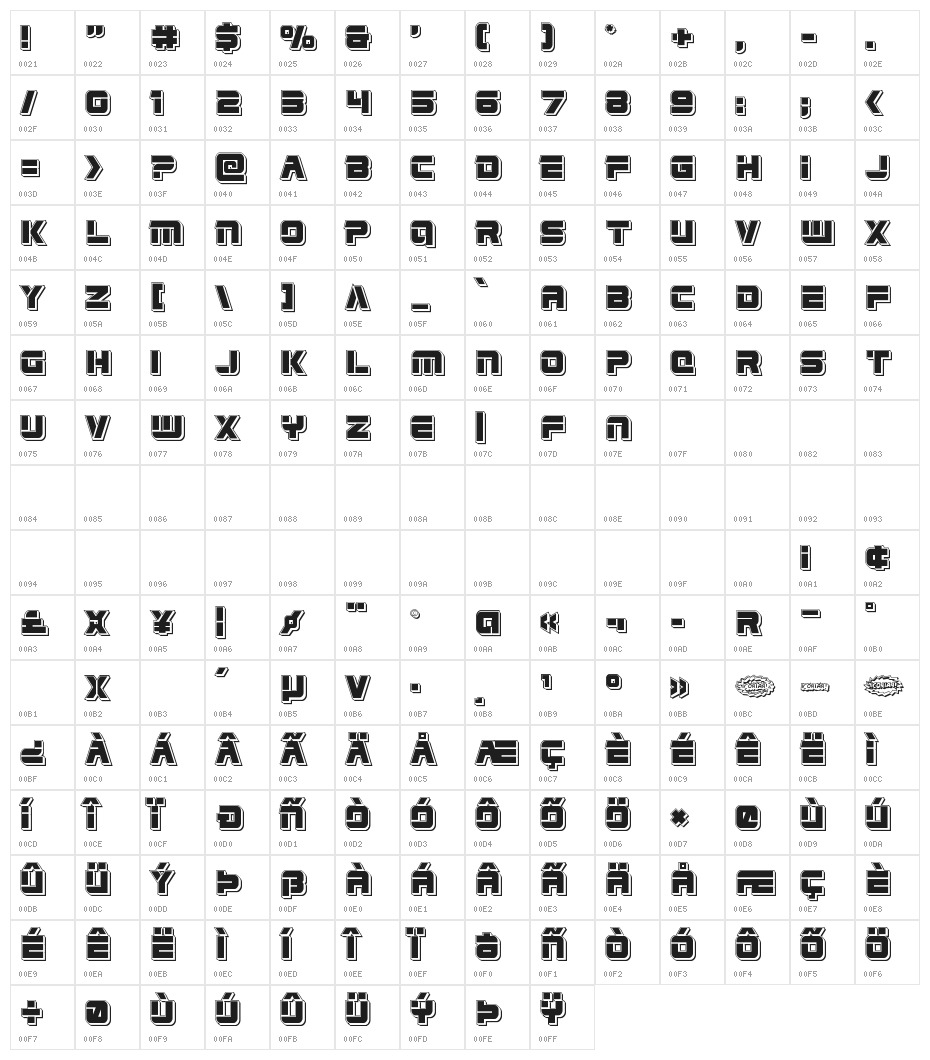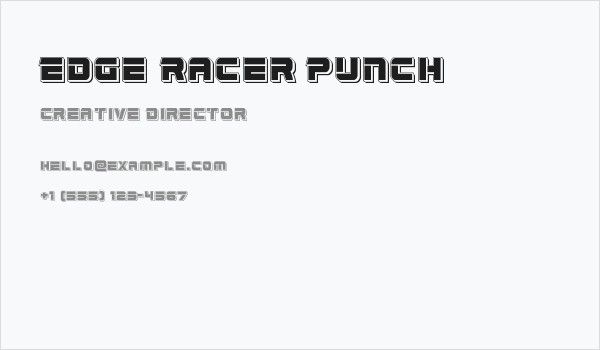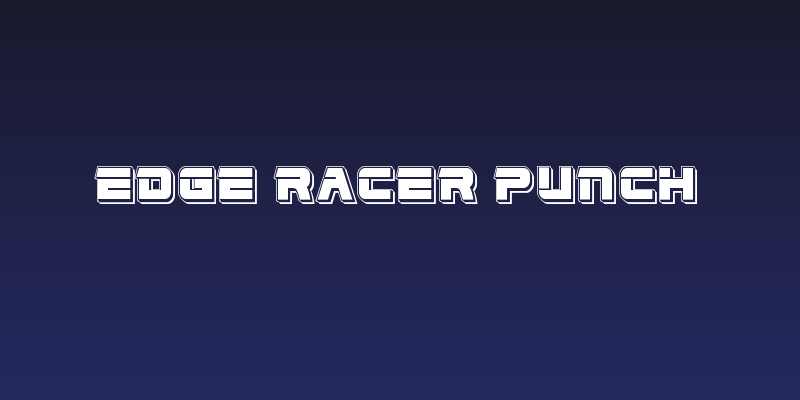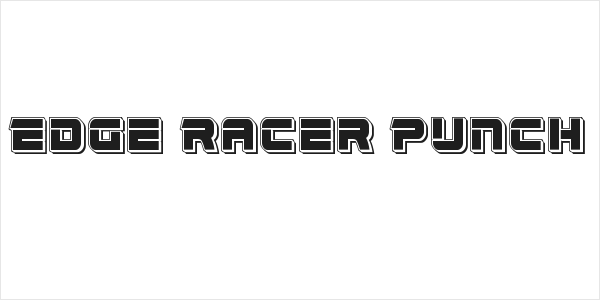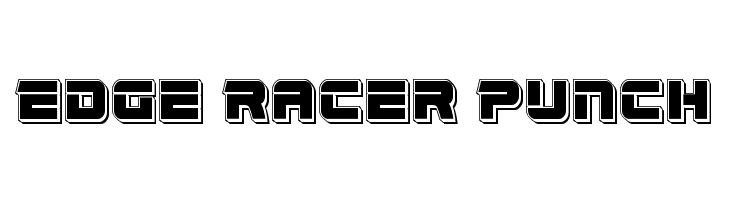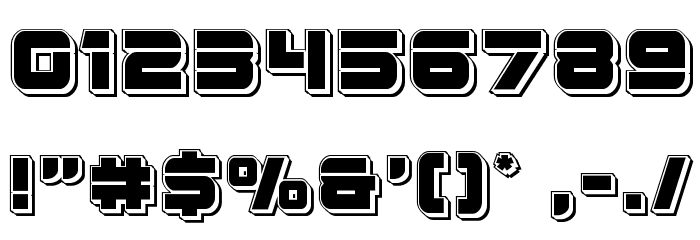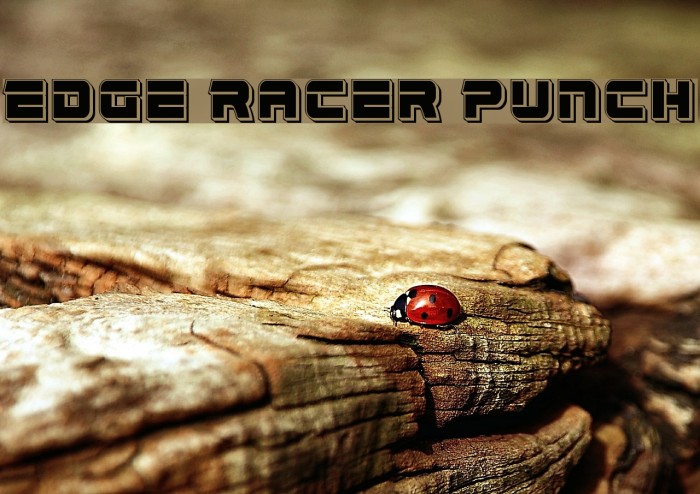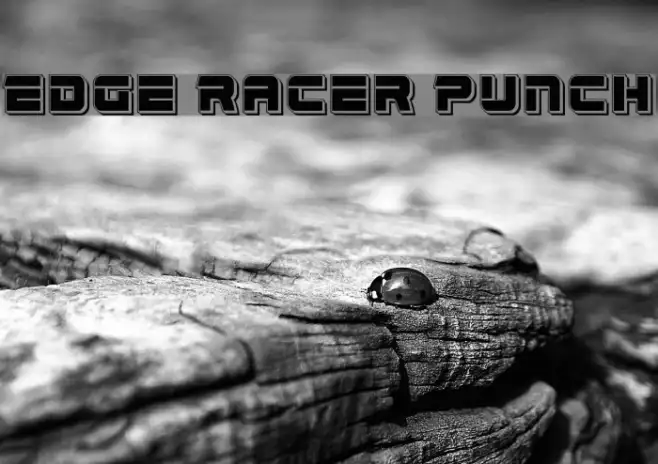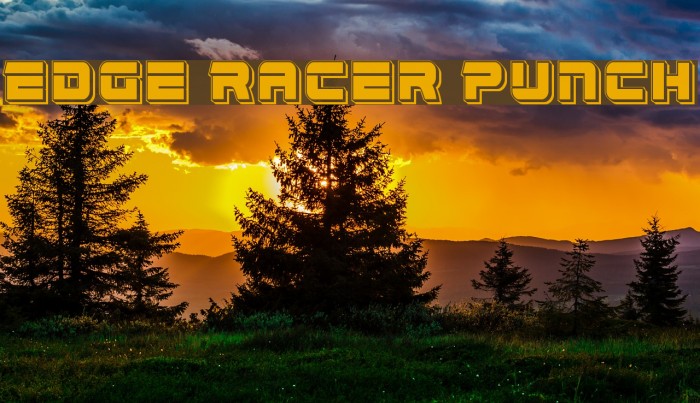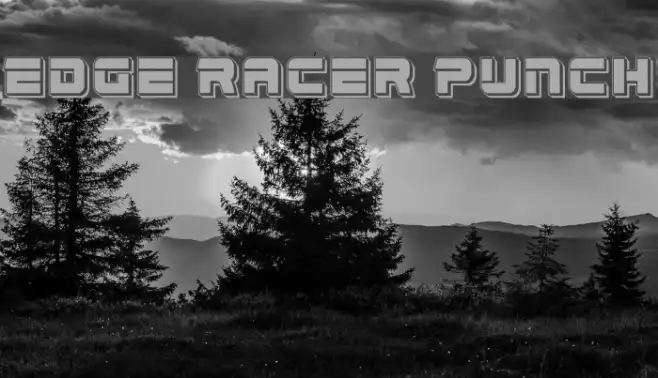
Edge Racer Punch Font
Edge Racer Punch Description
This font features a bold, geometric design with a distinct, futuristic flair. The characters are constructed with thick, angular lines and sharp edges, giving them a strong, impactful presence. The uppercase and lowercase letters maintain a consistent style, with a uniform height that enhances readability. The numbers and special characters follow the same design principles, ensuring a cohesive look across all elements. The font's style is reminiscent of retro-futuristic aesthetics, making it suitable for projects that require a bold and dynamic visual impact.
| Overall Style | Futuristic, Retro |
| Proposed Projects | Ideal for video game titles, sci-fi movie posters, tech branding, and dynamic advertising campaigns. |